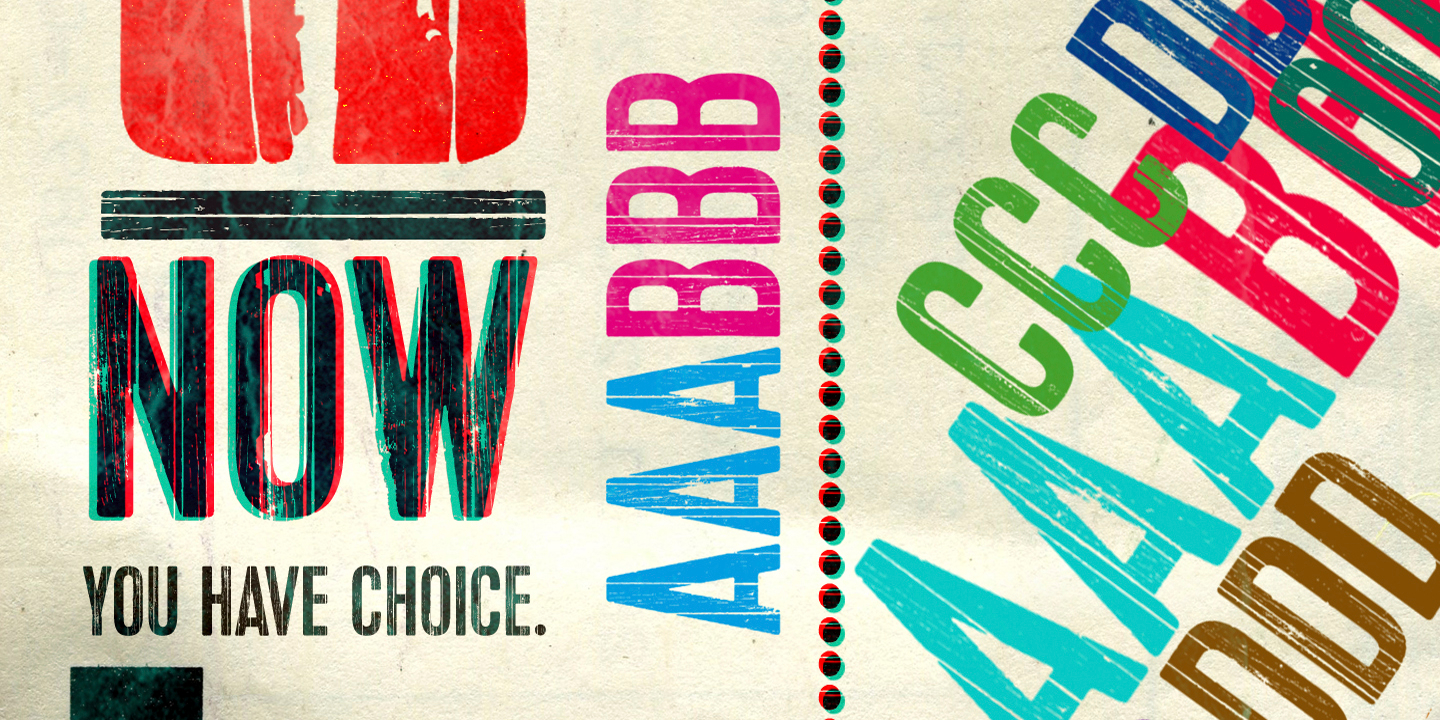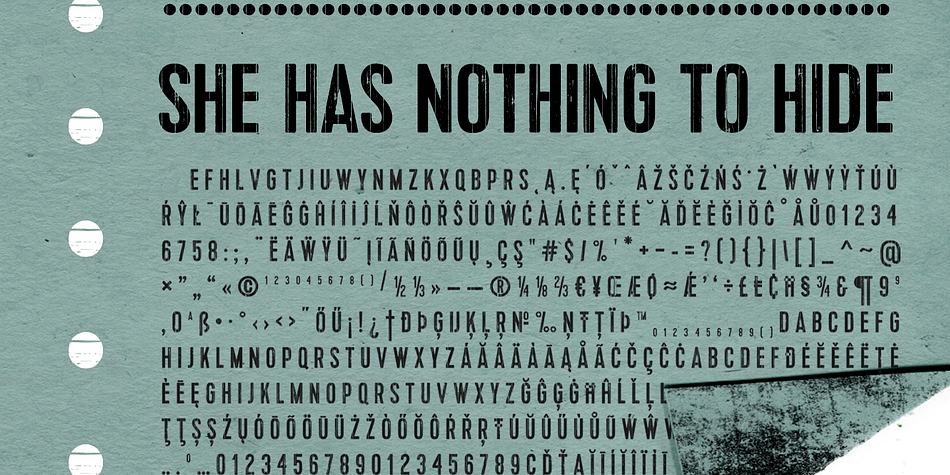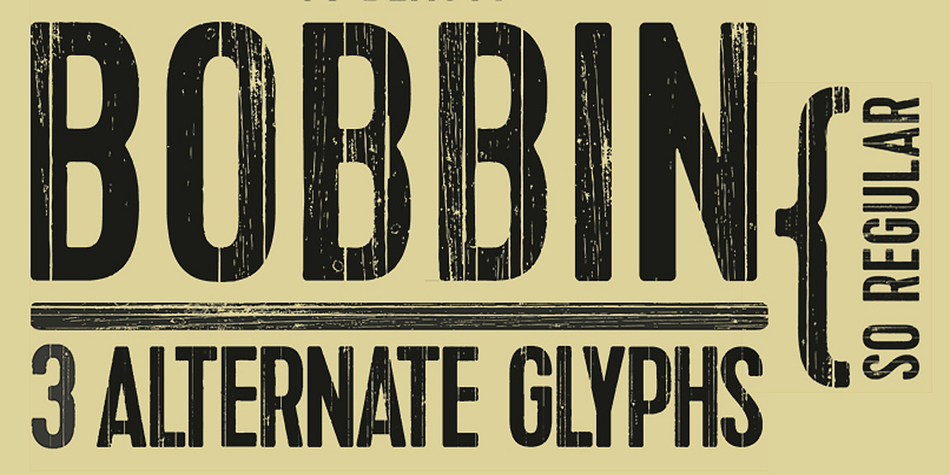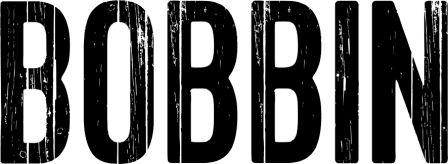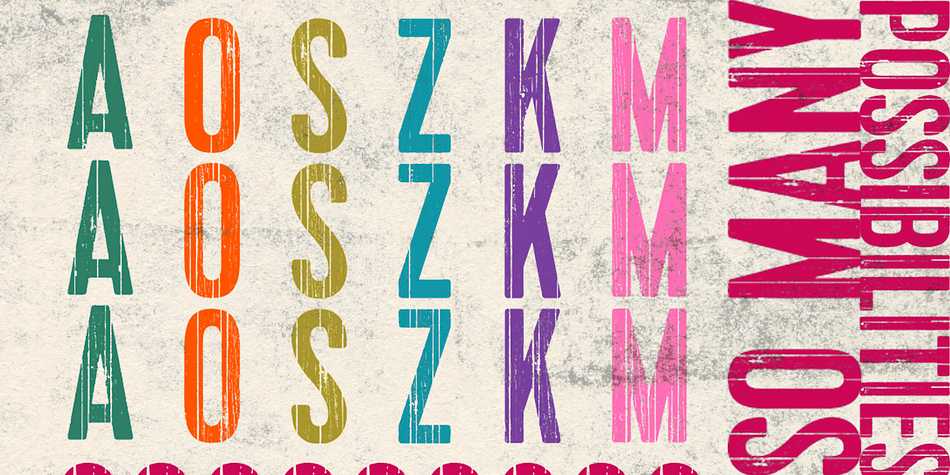
Bobbin is a grunge and display sans font published by Typoforge Studio.
To design a font Bobbin I was inspired by a You And Me Monthly published by National Magazines Publisher RSW Prasa that appeared from Mai 1960 till December 1973 in Poland. Automatic glyph replacement.